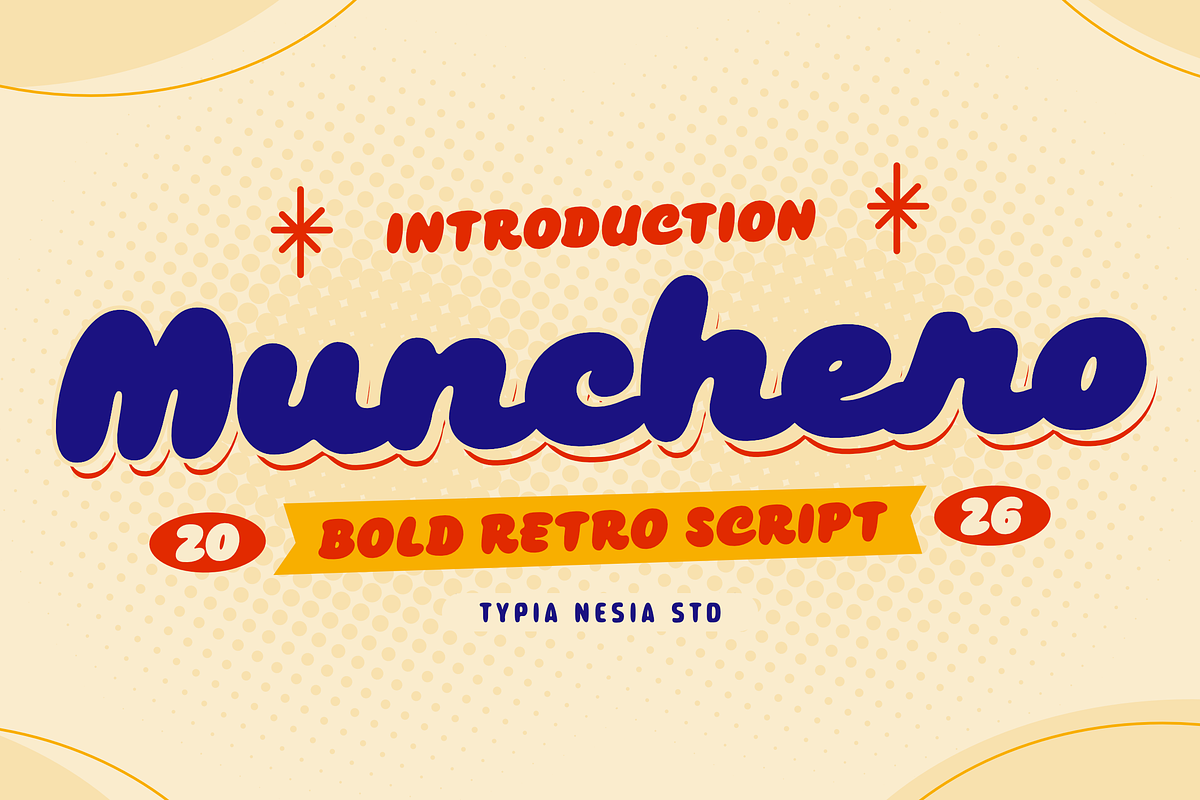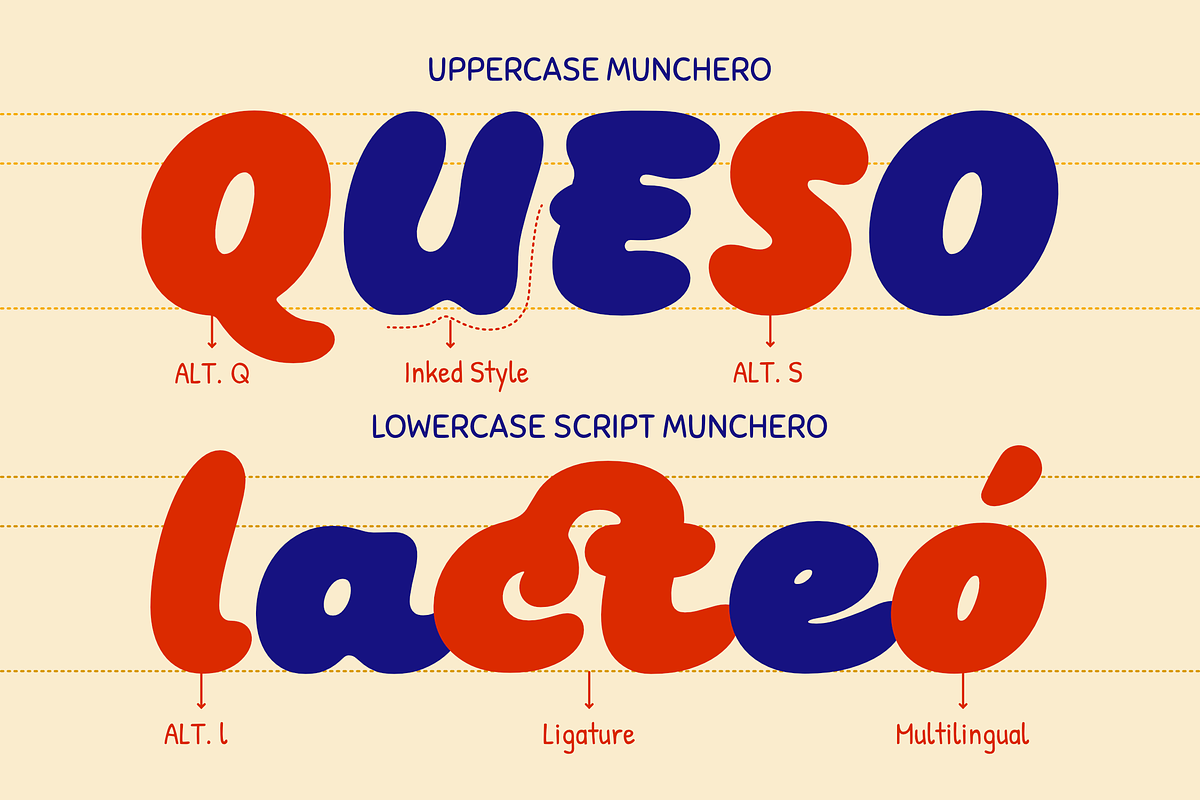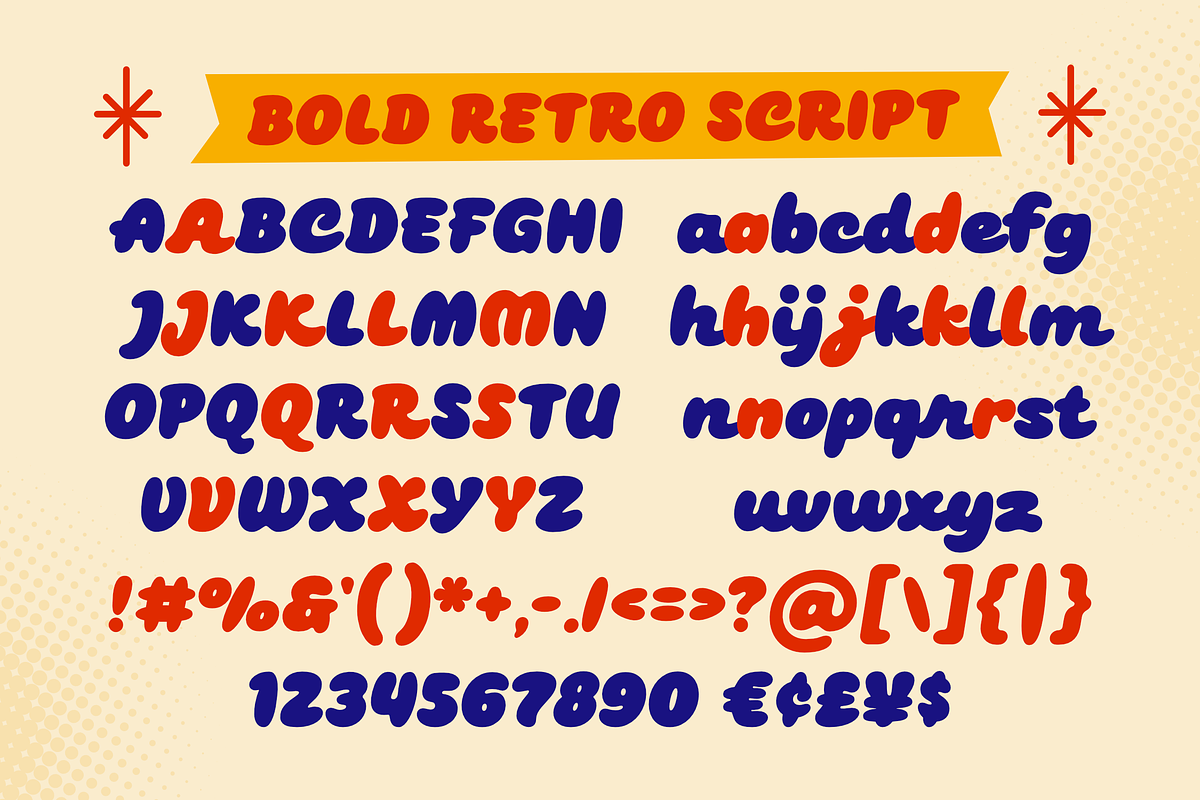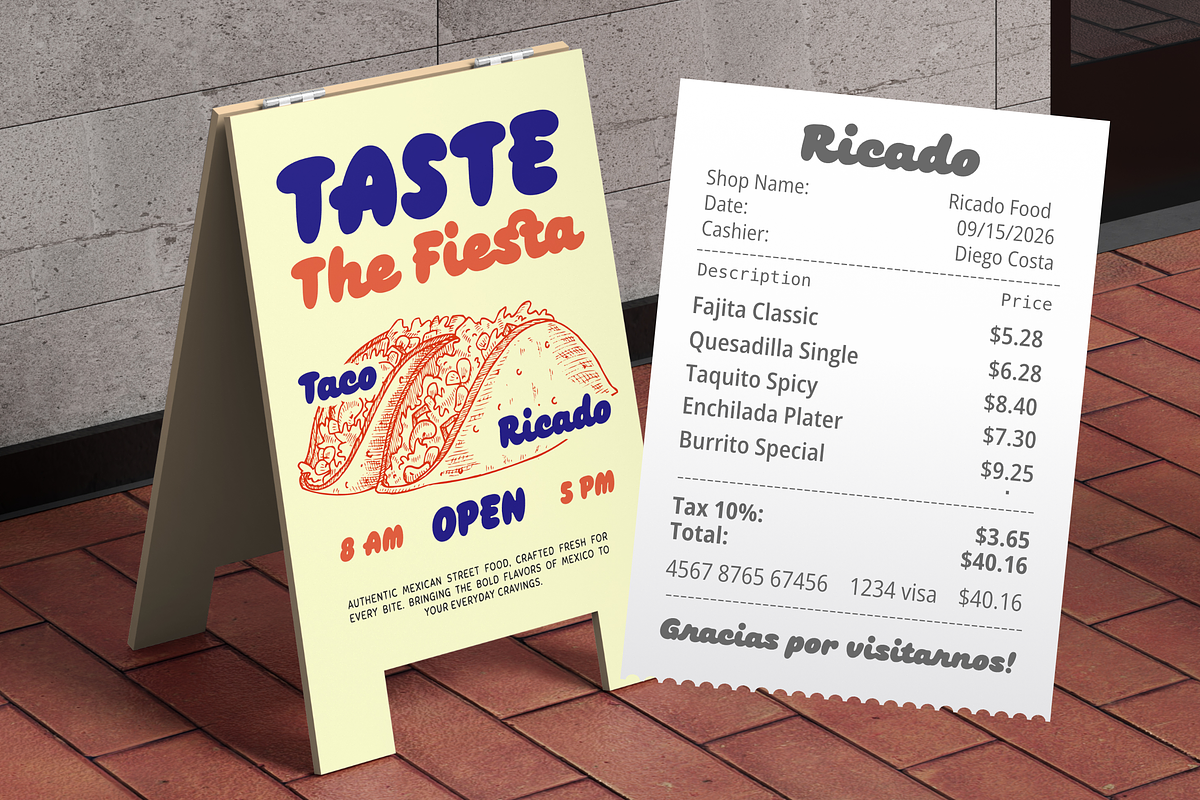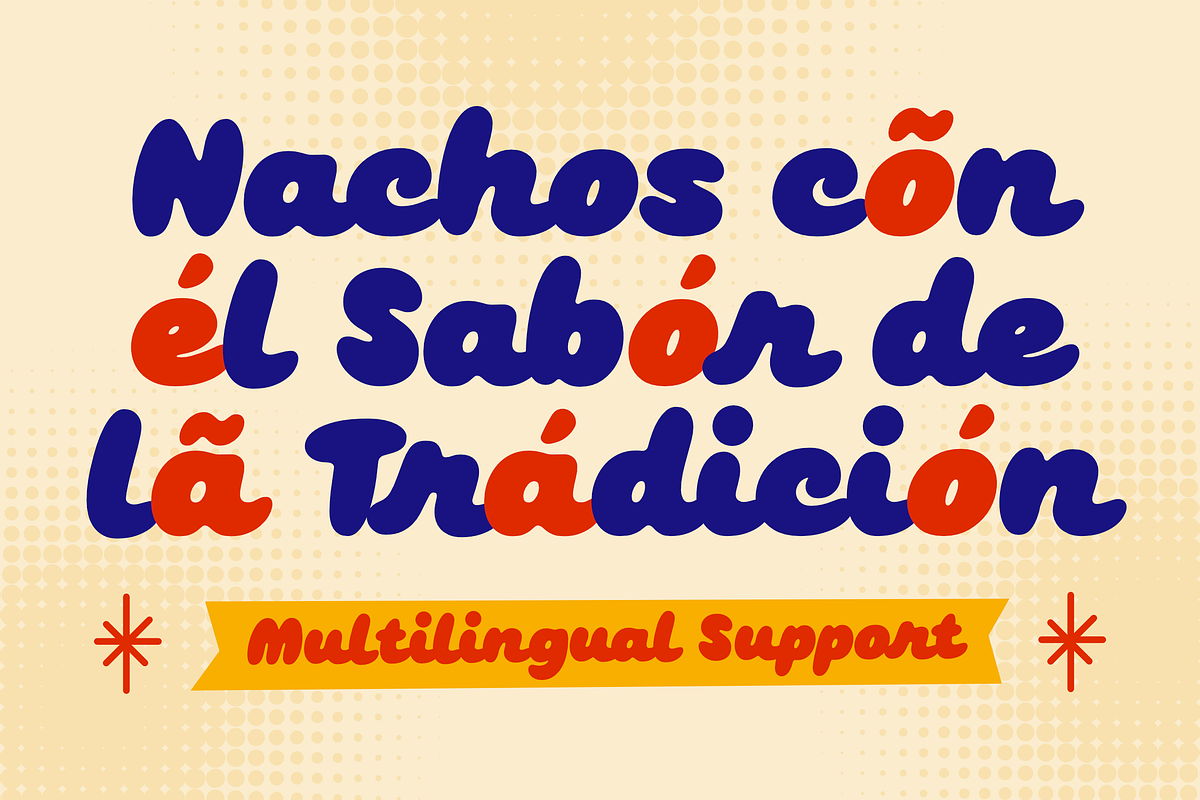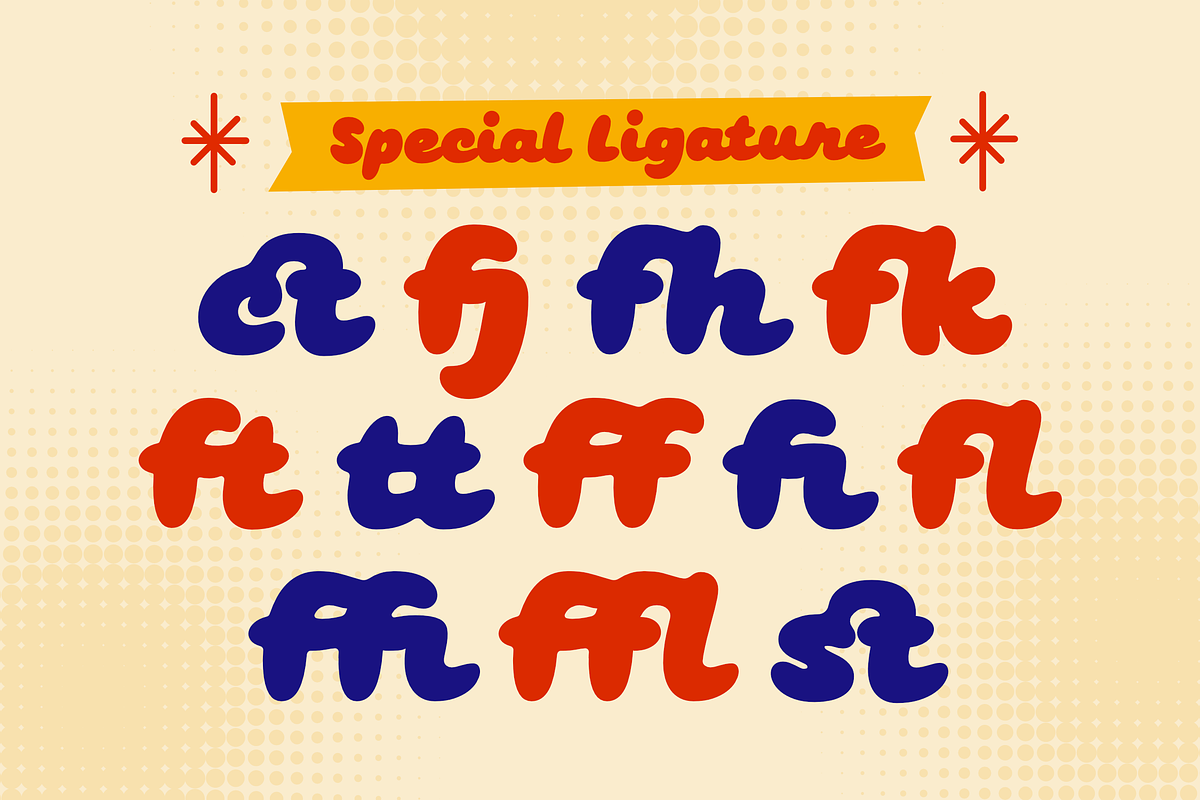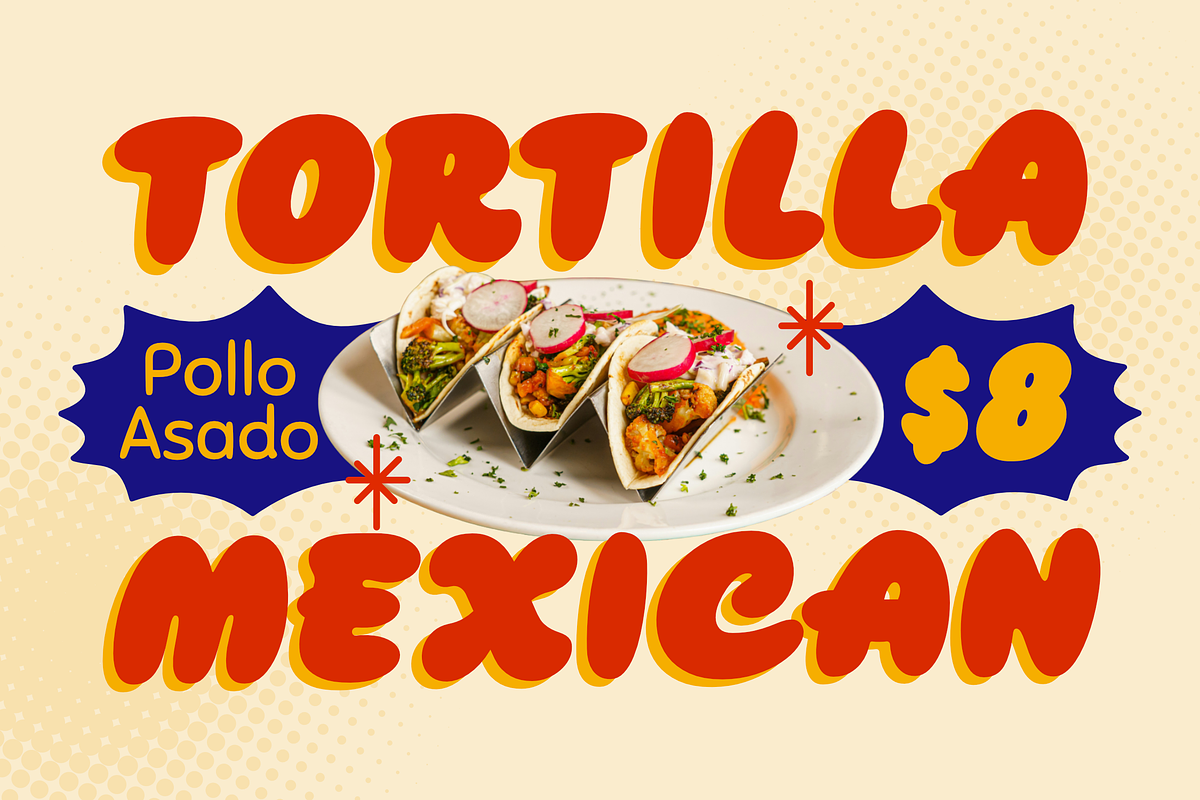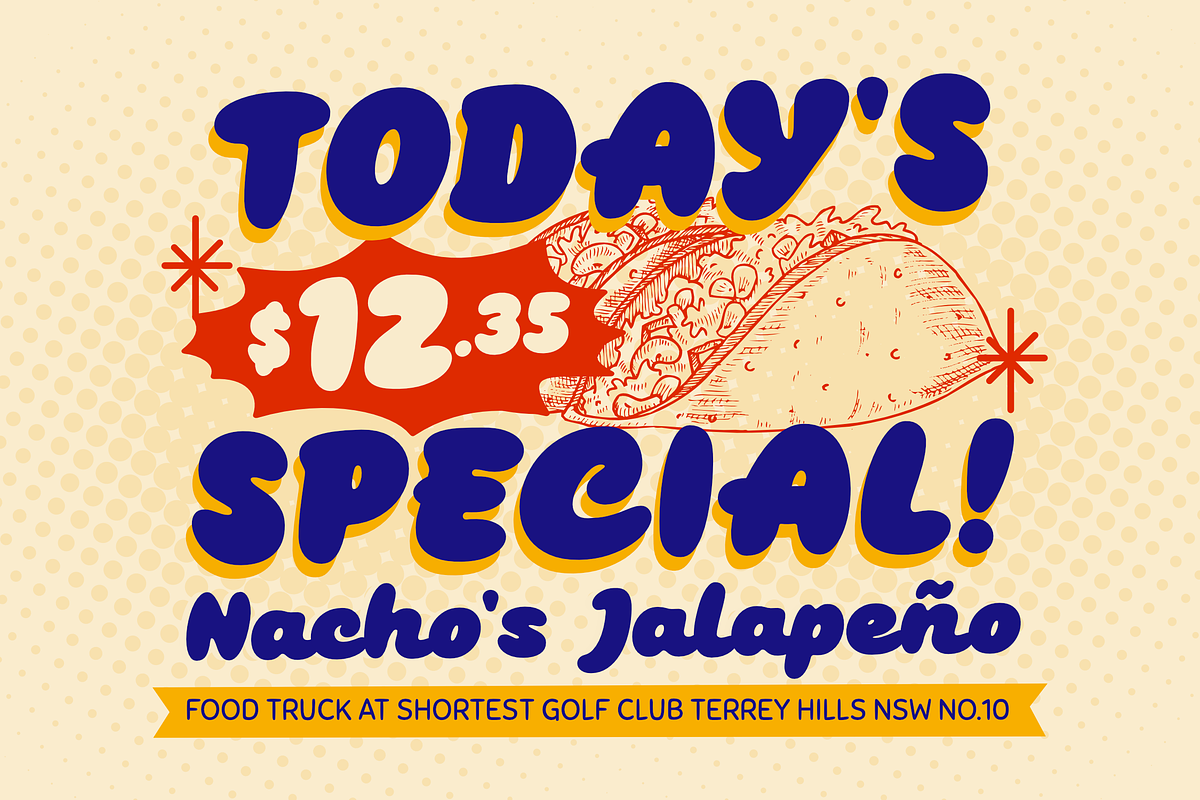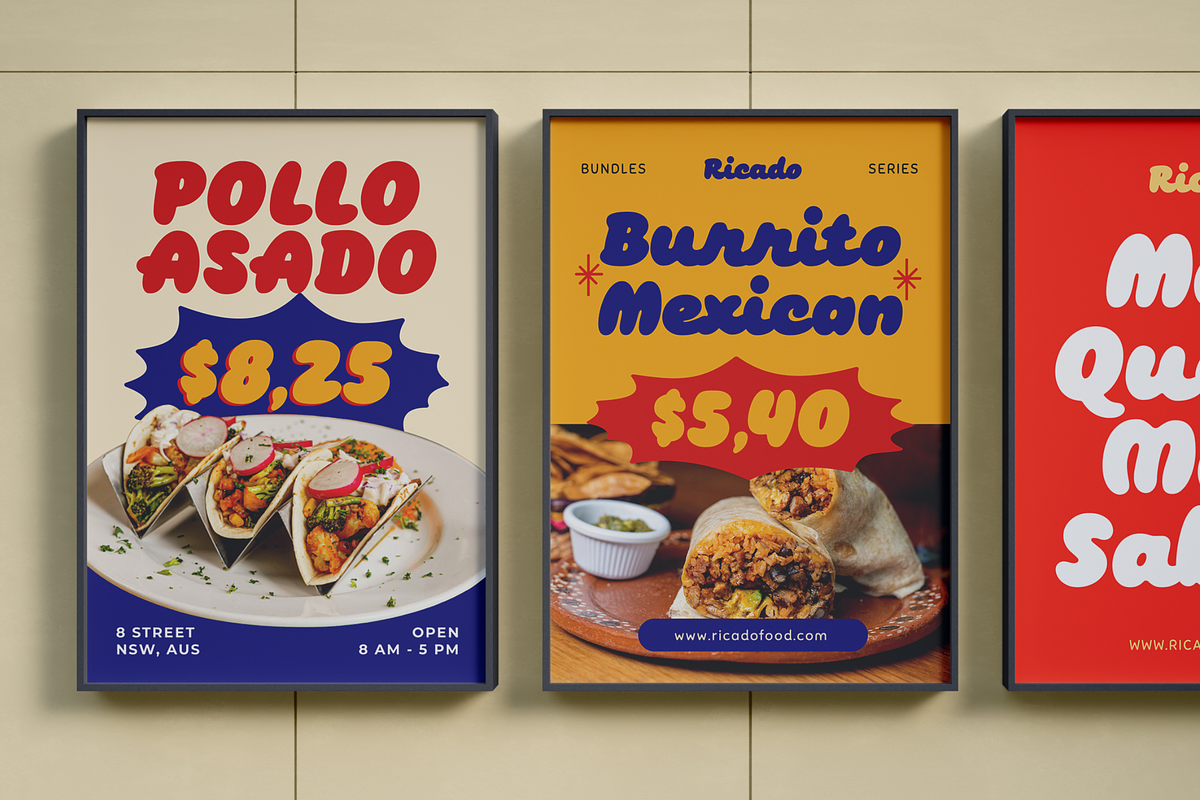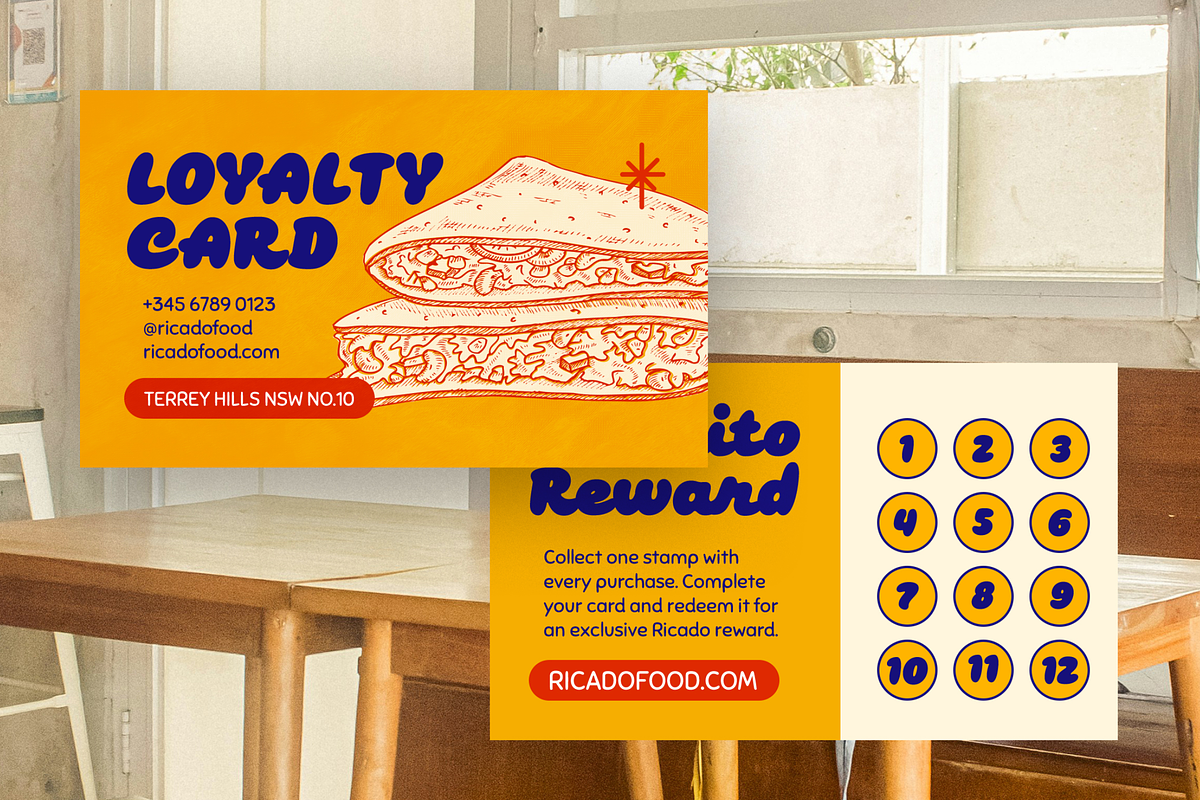
Munchero - Bold Retro Bodega Script
Munchero - Bold Retro Script Font for Fast Food, Bodega & Signage Branding
Munchero is a bold retro script font featuring chunky curves, smooth flowing connections, and an irresistibly friendly personality. Designed to make food brands look more memorable and appetizing, it delivers a warm, nostalgic visual impact that stands out across restaurant branding, storefront signage, and retail packaging.
Perfect for burger shops, fried chicken brands, cafés, diners, bodegas, grocery stores, food trucks, menus, product packaging, labels, logos, promotional posters, and social media campaigns. Bring nostalgic flavor and irresistible personality to your next food branding project with Munchero.